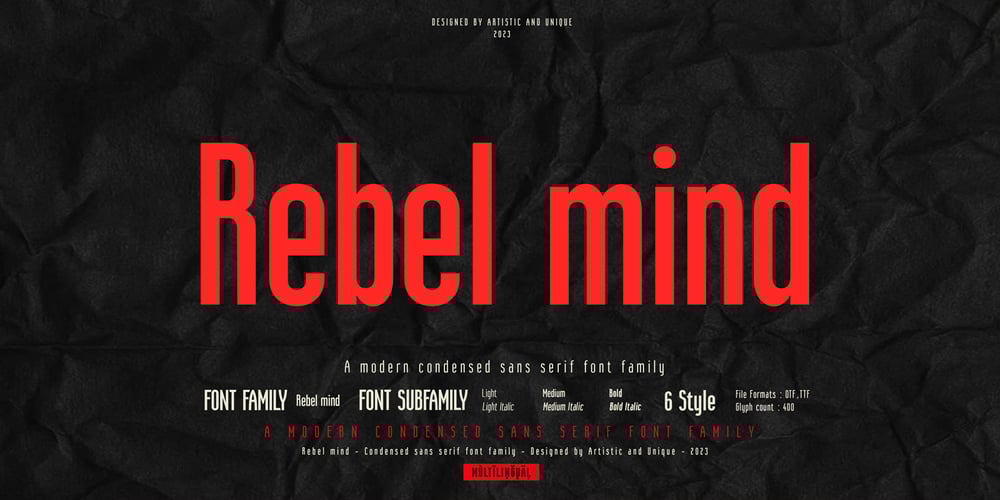
Rebel mind Font Family was designed by Osman Taner Kucukgenc and published by Artisticandunique. Rebel mind contains 6 styles and family package options. Rebel mind – Sans Serif Condensed Font Family – Multilingual supportsRebel mind is a modern Sans serif condensed font family. With 6 styles and multilingual supports, you can easily use the sans serif font feature in many areas.You can enhance your projects from body text to big headlines, from classic to modern and bold styles, you can develop your projects.If you are looking for a condensed sans serif font, this font many meet your needs.Ideal for posters, newspaper, movie title and magazines, magazine covers, editorials, headlines, websites, logos, branding, advertising and more.You can create your unique designs with this font. If you have a question, please contact me.Have a good time.